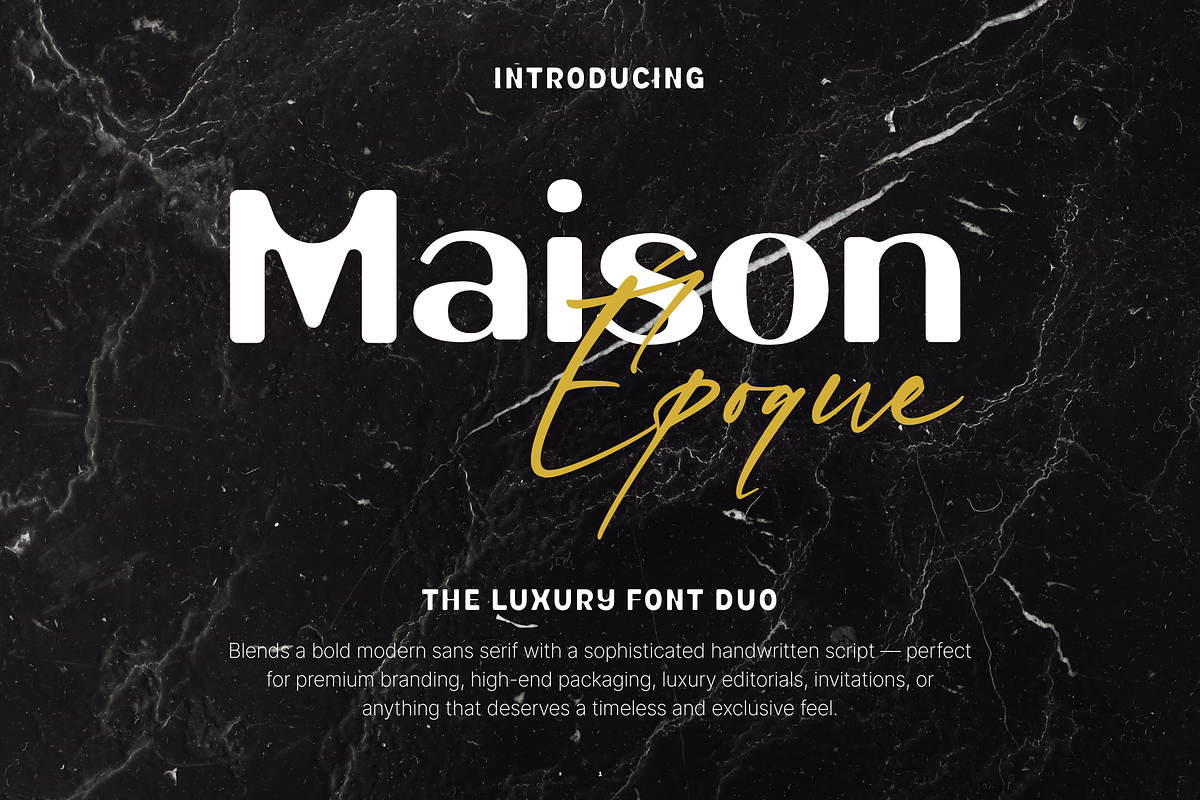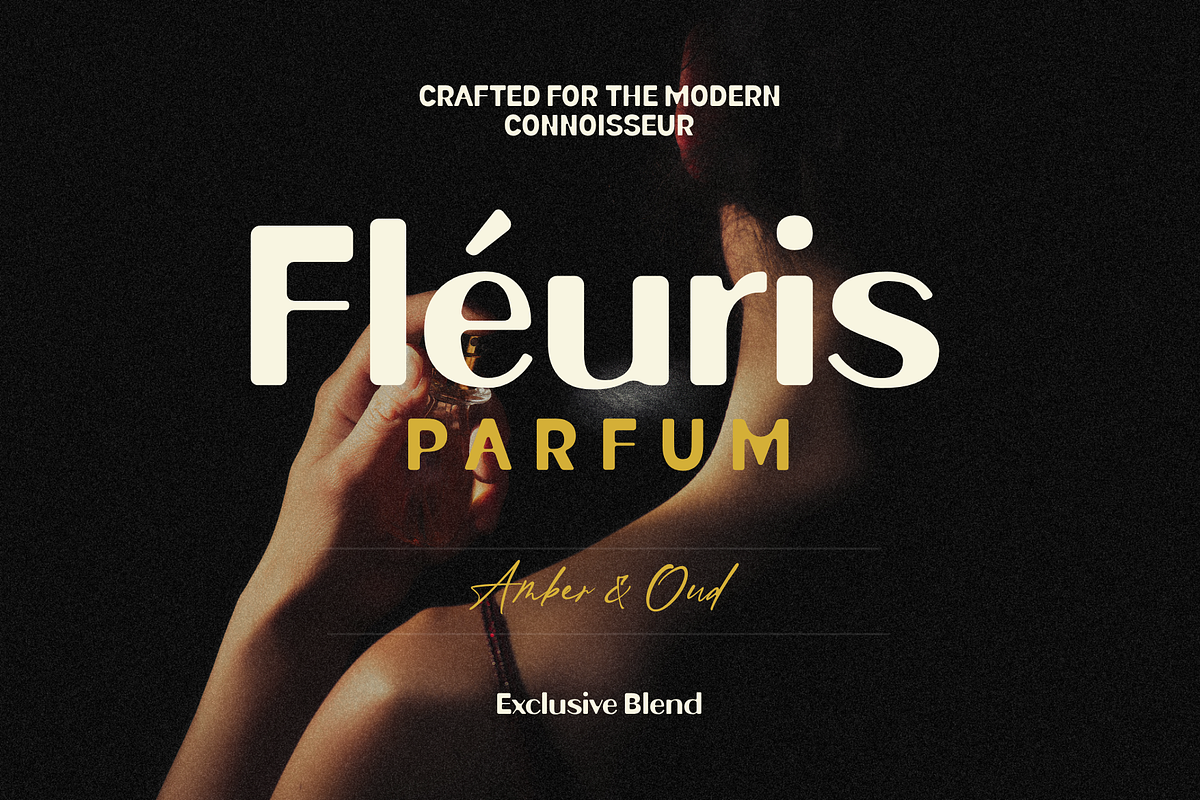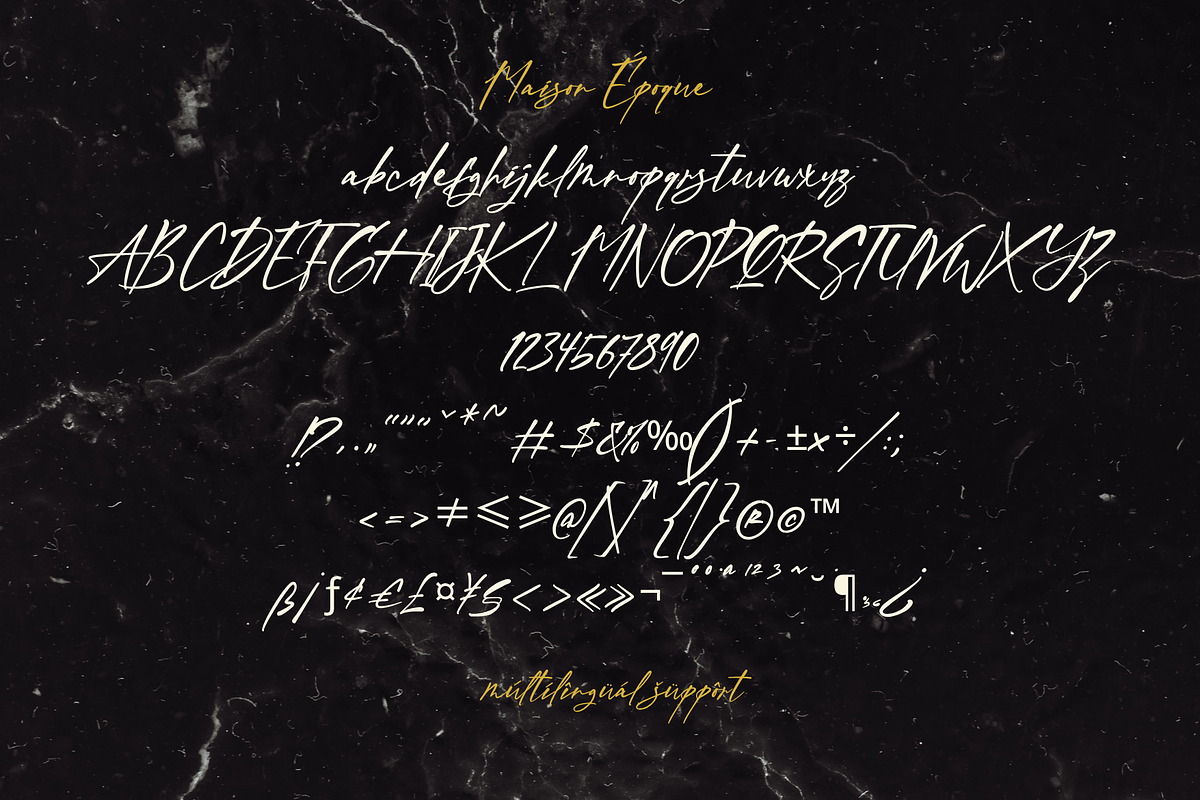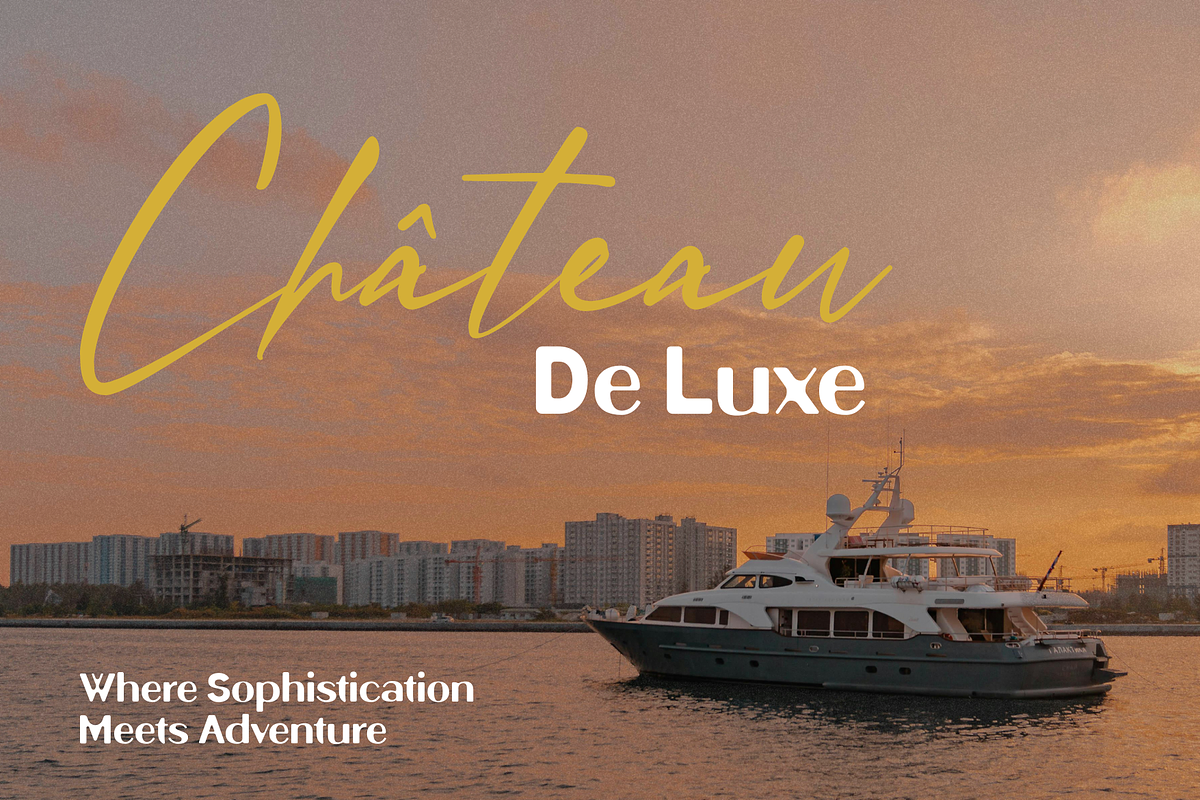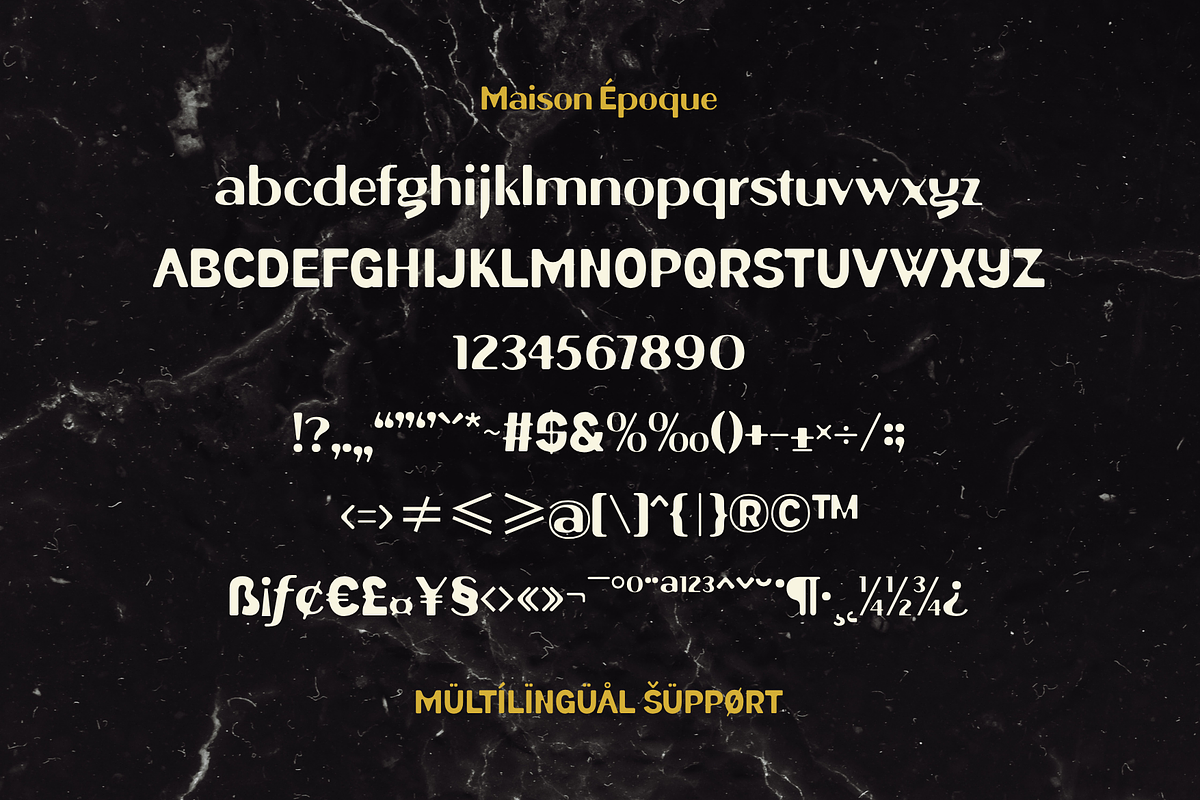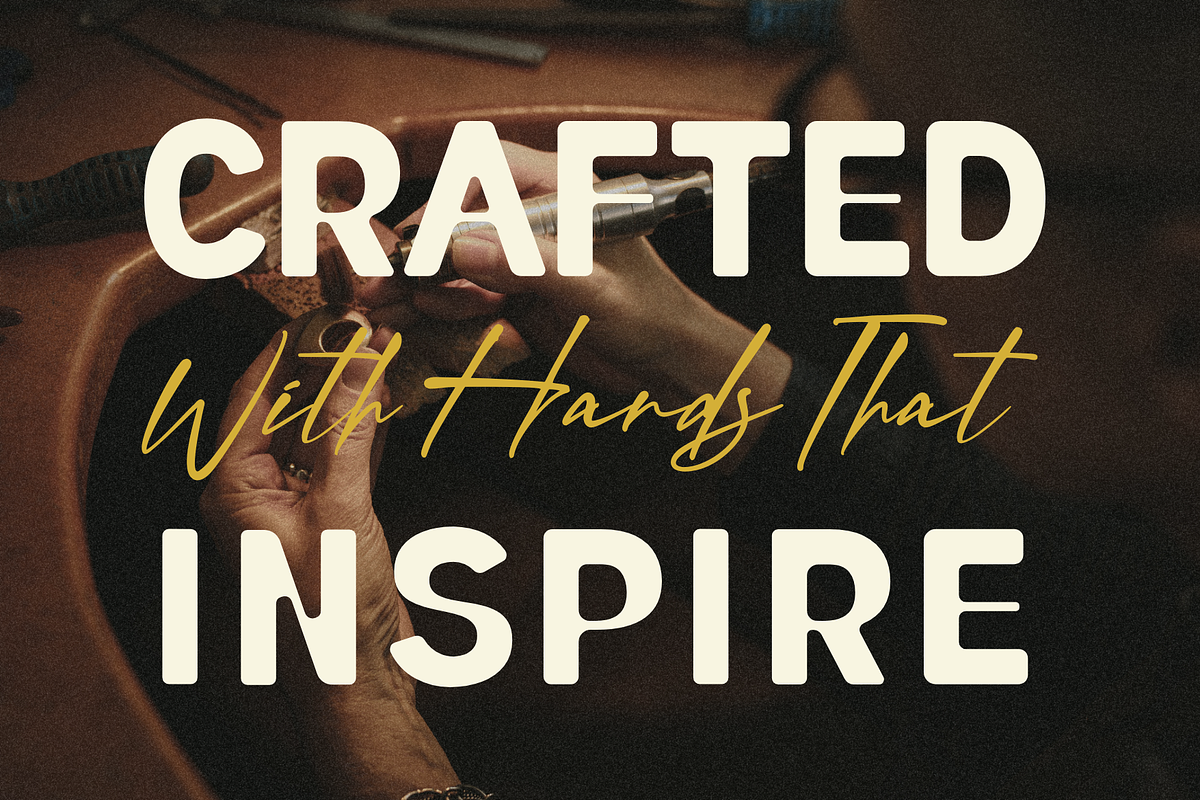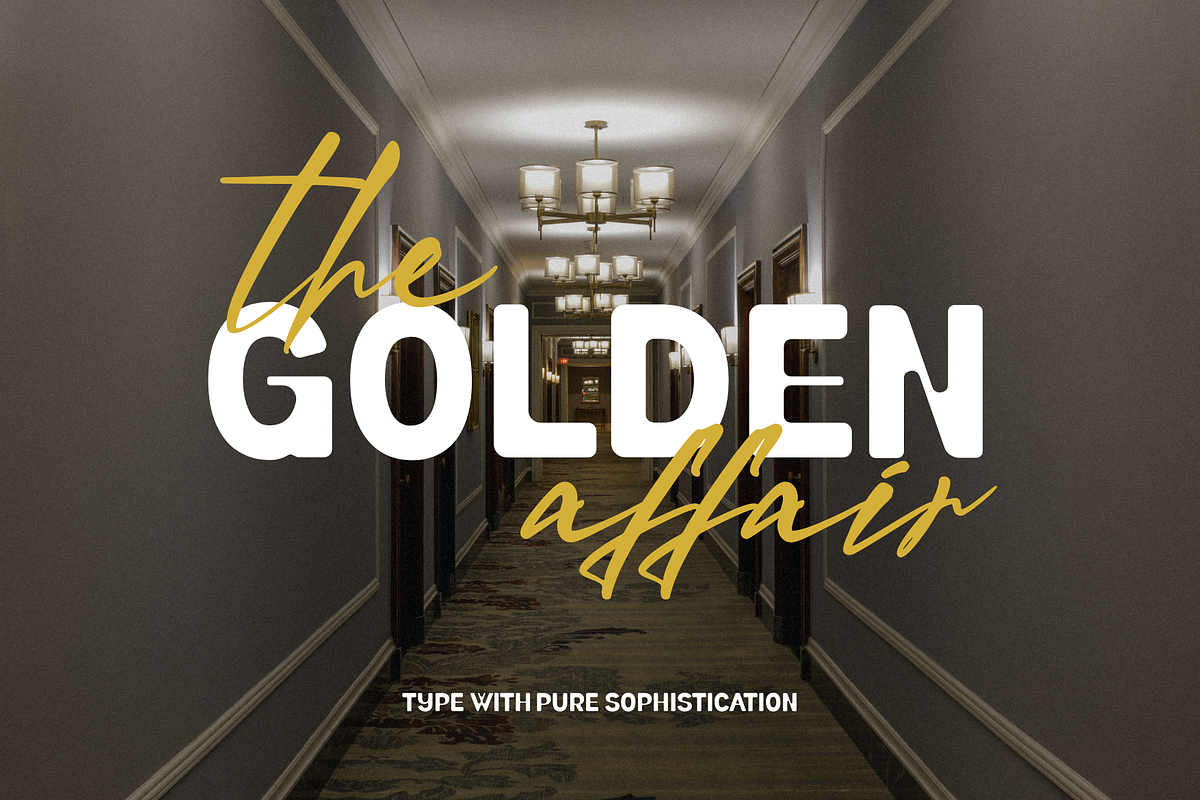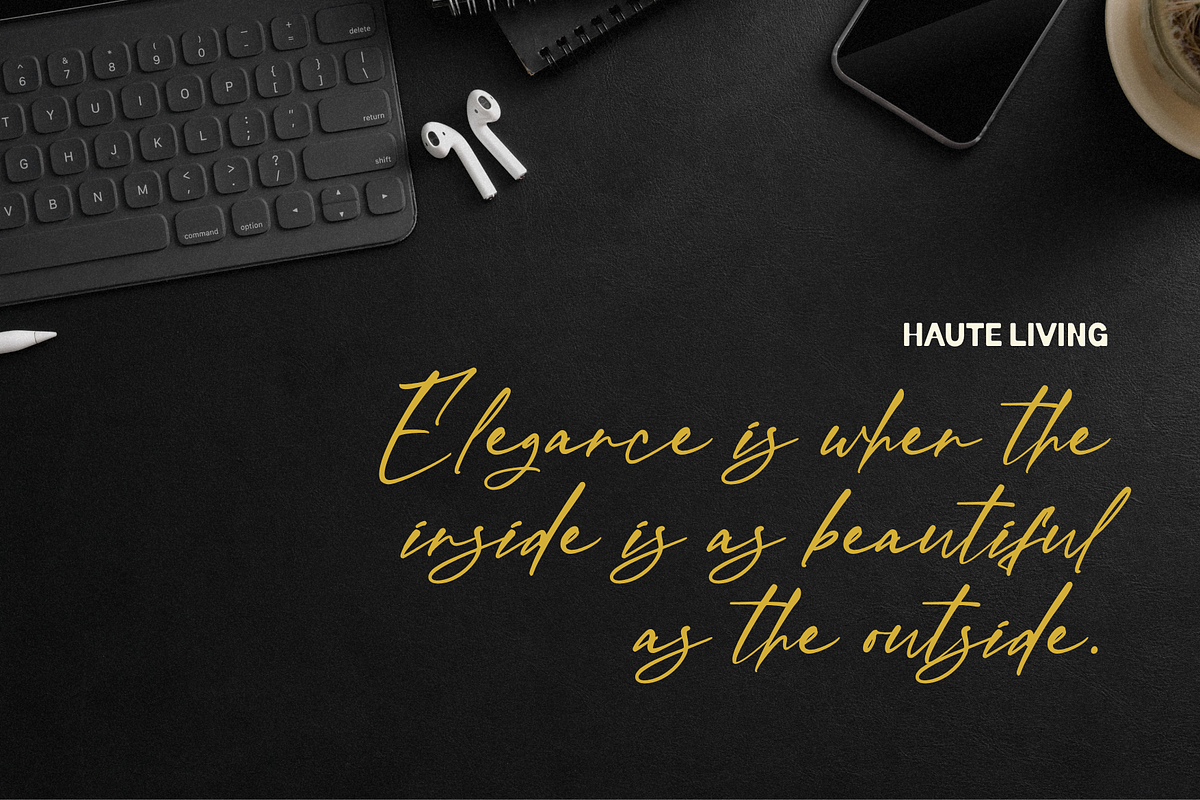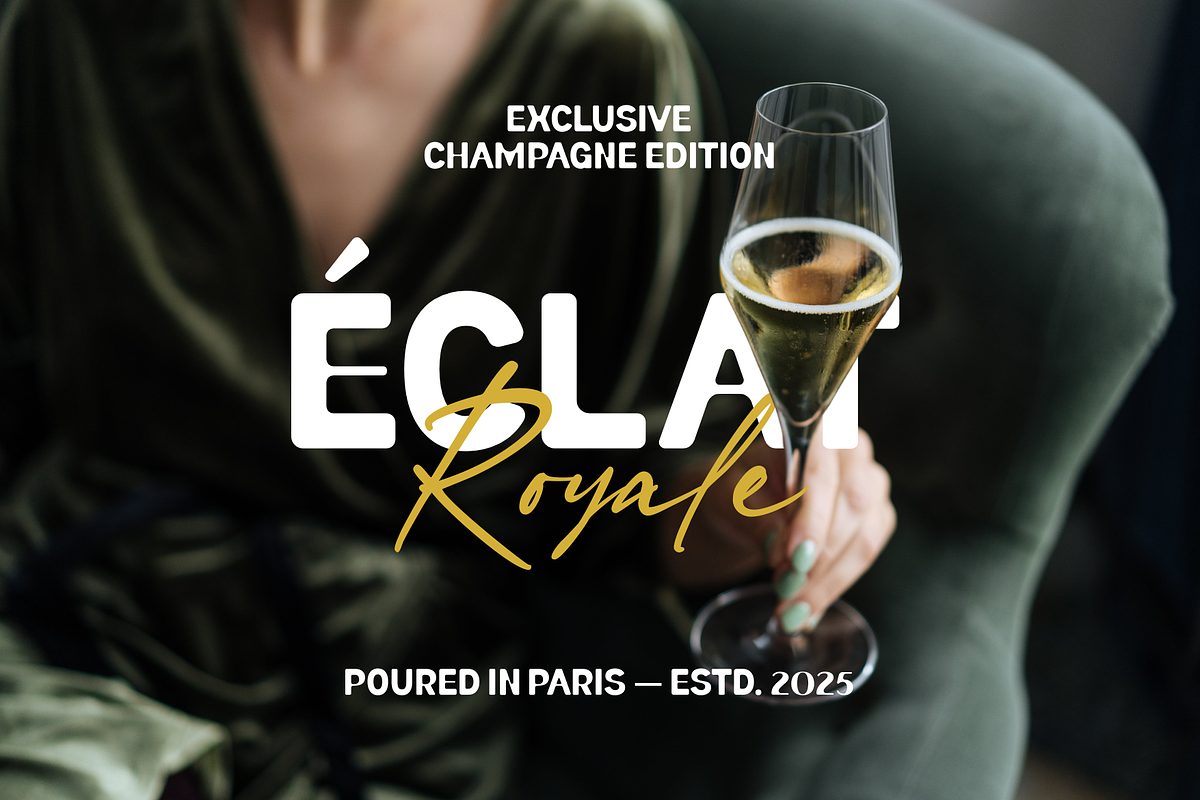
Maison Époque – The Luxury Font Duo
Maison Époque is a refined font pairing that blends the bold elegance of a modern sans serif with the timeless charm of a sophisticated handwritten script. This combination is designed to elevate your designs with a balance of strength and grace, perfect for premium branding, high-end packaging, luxury editorials, and statement invitations.
The sans serif exudes confidence and clarity, while the script adds a touch of artistic flair, making this duo incredibly versatile for both contemporary and classic projects. Whether you’re designing a champagne label, crafting a fashion campaign, or creating bespoke stationery, Maison Époque will bring a high-end feel to your work.
- Luxury branding & identity design
- Premium packaging (perfume, wine, cosmetics, etc.)
- Editorial layouts & magazine covers
- Fashion lookbooks
- Wedding invitations & event stationery
- Social media & advertising campaigns
- Extensive multilingual support
- Elegant pairing of bold sans serif & handwritten script
- Smooth curves and balanced letterforms
- Works beautifully in both large and small sizes
Bring your brand to life with a font duo that speaks the language of sophistication and exclusivity.